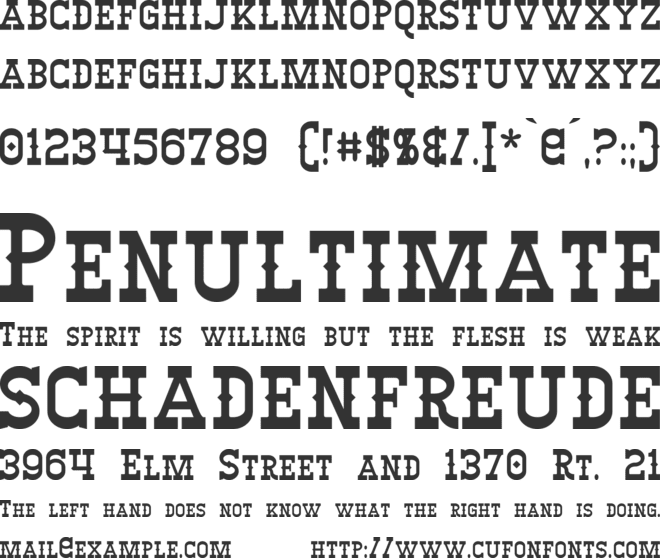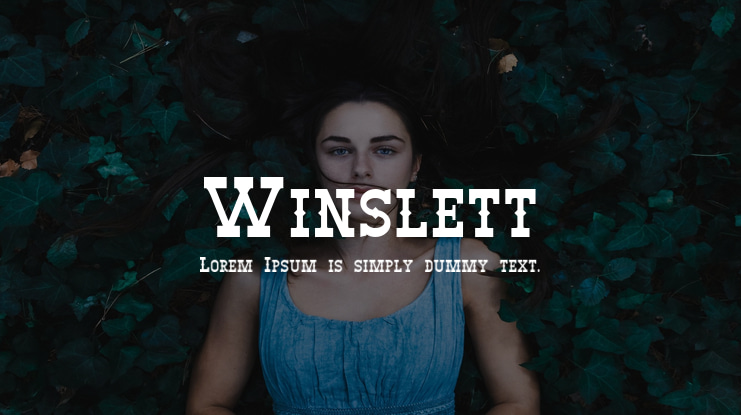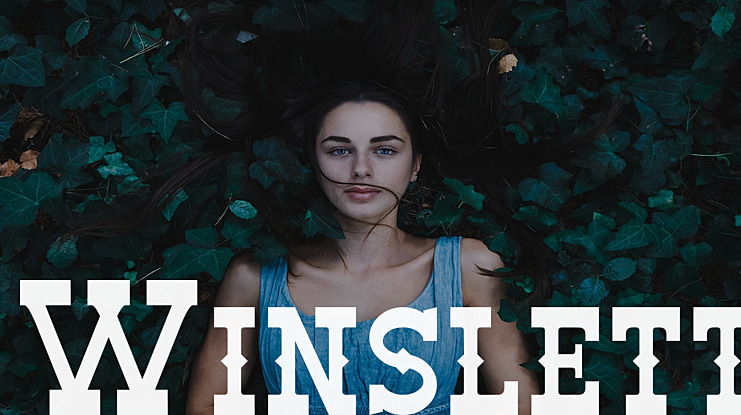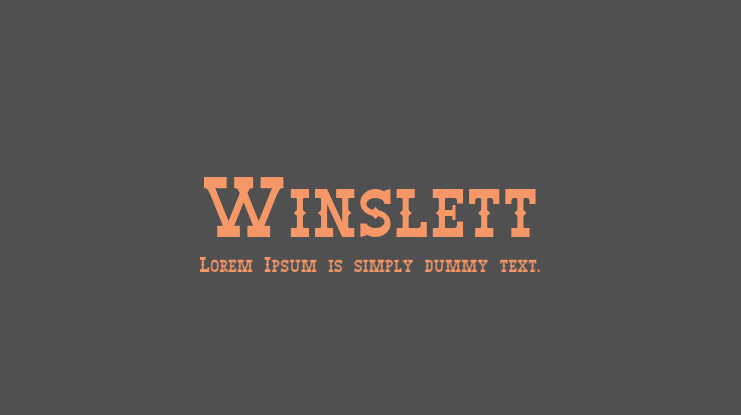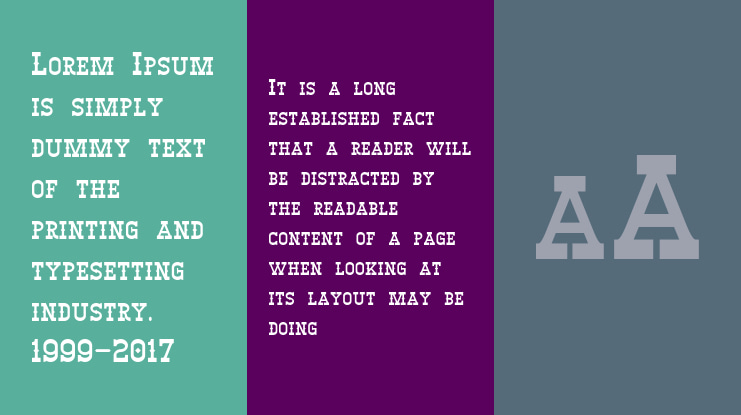
Winslett Font Family
Neale Davidson
Winslett is a decorative 'old-west' style font with thin letters and heavily-thickened serifs and accents. Includes full alphabet, accent characters, and Euro. Includes 'hollow' version.